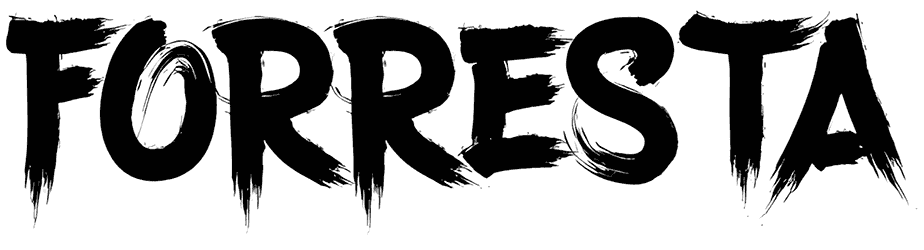
Forresta Font
Forresta as a brush font has become one of the successful options in your horror toolbox. This horror font is for those who want to present their Halloween products to the market with a fresh look. That’s why, even without lowercase letters, you can still create successful projects in the form of a cover, logo, packaging, and poster design using this brush font.